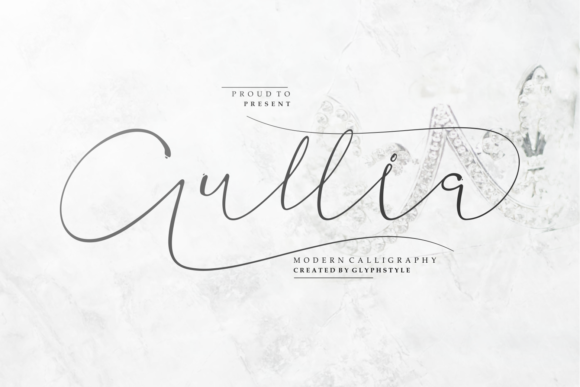
Aullia Font: Elevate Your Designs with Elegance and Sophistication
In the world of typography, few fonts manage to strike a balance between timeless elegance and modern friendliness. Aullia Font is one such exceptional typeface that combines the best of both worlds, offering a magical script font with a touch of sophistication. Designed to inspire creativity and elevate designs, Aullia is perfect for crafters, designers, and anyone looking to add a dash of class to their projects.
The Essence of Aullia Font
Aullia is more than just a font; it’s a statement of elegance and refinement. Its classic style, infused with authentic calligraphy, makes it an excellent choice for a wide range of design applications. From wedding invitations and branding materials to packaging and digital content, Aullia brings a level of sophistication that is hard to match.
Key Features of Aullia Font
- Timeless Elegance: Aullia’s design is rooted in traditional calligraphy, offering a sense of permanence and class.
- Authentic Calligraphy: The font boasts authentic calligraphic flair, making each letter a piece of art.
- Classic yet Friendly: Despite its classic roots, Aullia maintains a friendly feel, making it versatile for various design projects.
- Highly Legible: Aullia is designed not only to be beautiful but also highly readable, ensuring your message is conveyed clearly.
- Multilingual Support: Catering to a global audience, Aullia supports multiple languages, making it a fantastic choice for international brands and projects.
Why Choose Aullia Font?
Aullia stands out in a sea of fonts due to its unique blend of elegance and approachability. Here are a few compelling reasons to choose Aullia for your next design project:
- Versatility: Whether you’re working on a luxury brand’s logo, a wedding invitation, or a packaging design, Aullia adapts seamlessly, adding a touch of elegance.
- Emotional Connection: The font’s calligraphic nature and elegant lines help create an emotional connection with the audience, making your designs more impactful.
- Trend-Transcending: Aullia’s classic style ensures it remains relevant across different design trends, saving you the hassle of frequent font changes.
Using Aullia Font in Your Designs
- Pair with Simplicity: Let Aullia be the centerpiece by pairing it with simpler fonts for body text, ensuring your design remains balanced.
- Experiment with Colors: While Aullia looks stunning in black and dark colors, don’t hesitate to experiment with other hues to match your brand’s palette.
- Play with Sizes: Utilize different sizes to create a hierarchy in your design, making some elements stand out more than others.
Aullia Font is a remarkable addition to any designer’s toolkit, offering a perfect blend of elegance, authenticity, and friendliness. Its versatility and timeless appeal make it an excellent choice for a wide range of projects. Whether you’re a professional designer or a crafty DIY enthusiast, Aullia can help elevate your designs, making them more engaging and memorable. Discover the magic of Aullia and let it transform your creative projects into stunning works of art.